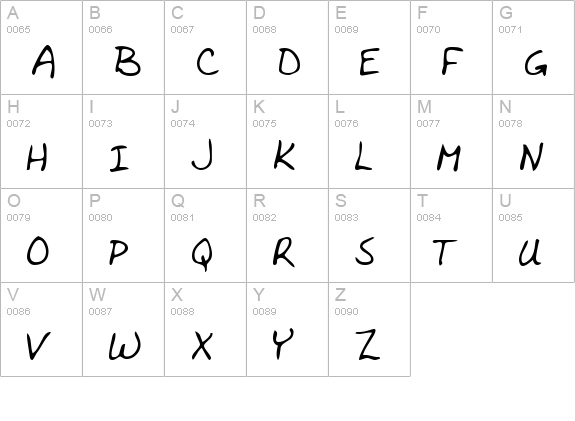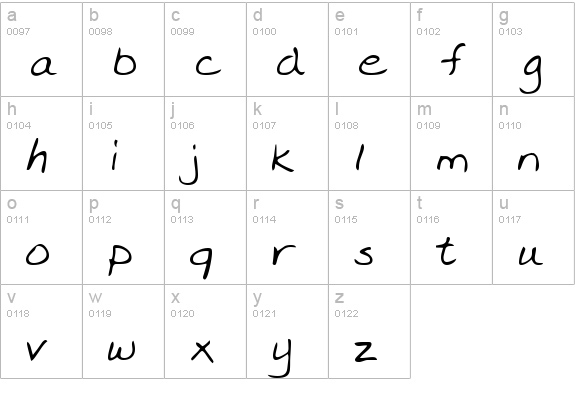
EverlysHand Regular Font Details
EverlysHand Regular is the standard, neutral variant in the EverlysHand typeface family \xE2\x80\x94 well suited to general body text, paragraphs, and standard typographic work.
EverlysHand Regular font is a charming and elegant typeface that exudes a sense of warmth and friendliness. Its smooth curves and gentle strokes make it perfect for adding a personal touch to any design project. Whether you're working on invitations, greeting cards, or branding materials, EverlysHand Regular font will bring a touch of sophistication to your work. What makes EverlysHand Regular font even more special is that it is available for free download at FontsMarket.com. This means you can easily access this beautiful font to enhance your designs without any cost. Don't miss out on the opportunity to elevate your projects with the timeless beauty of EverlysHand Regular font – download it for free today!